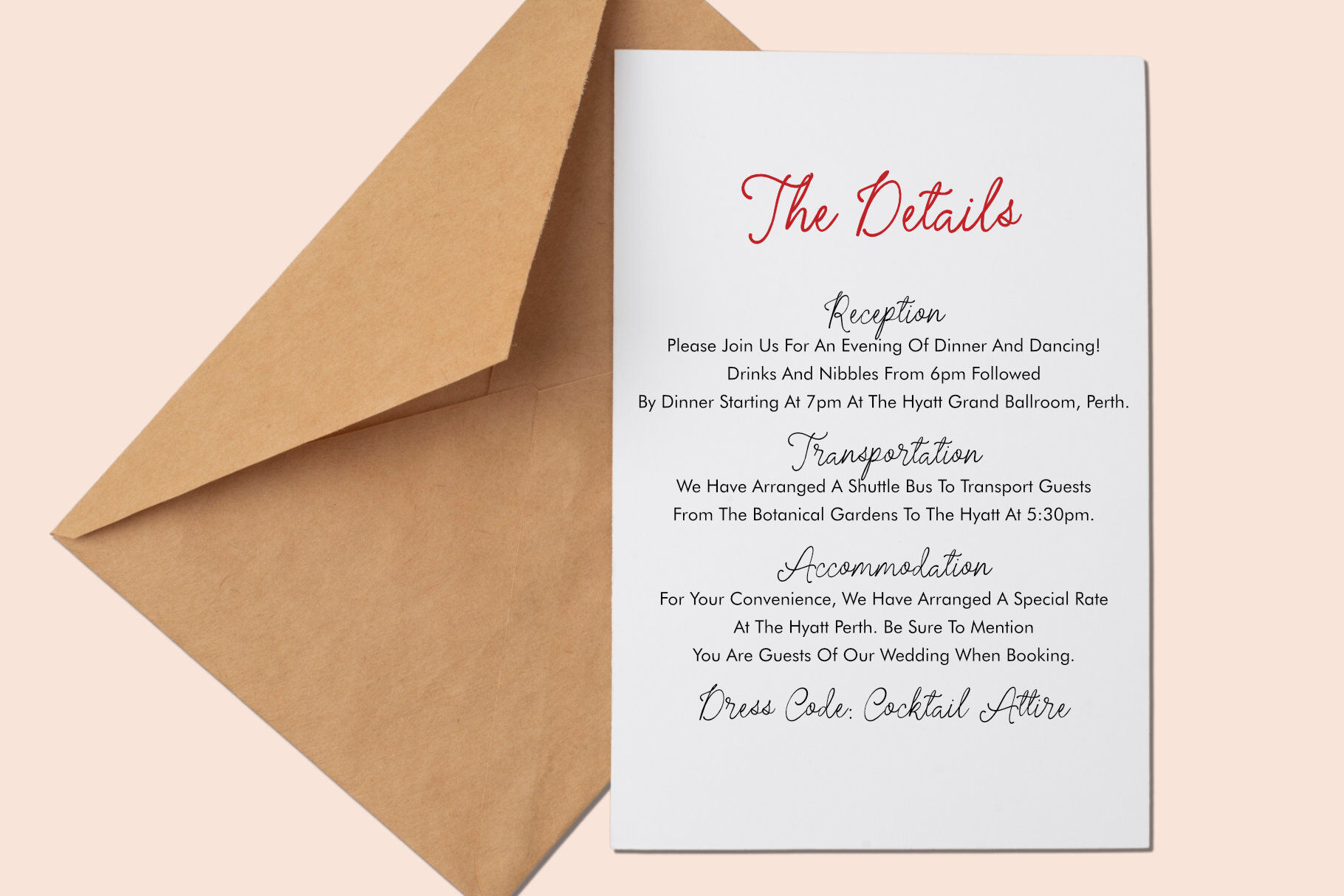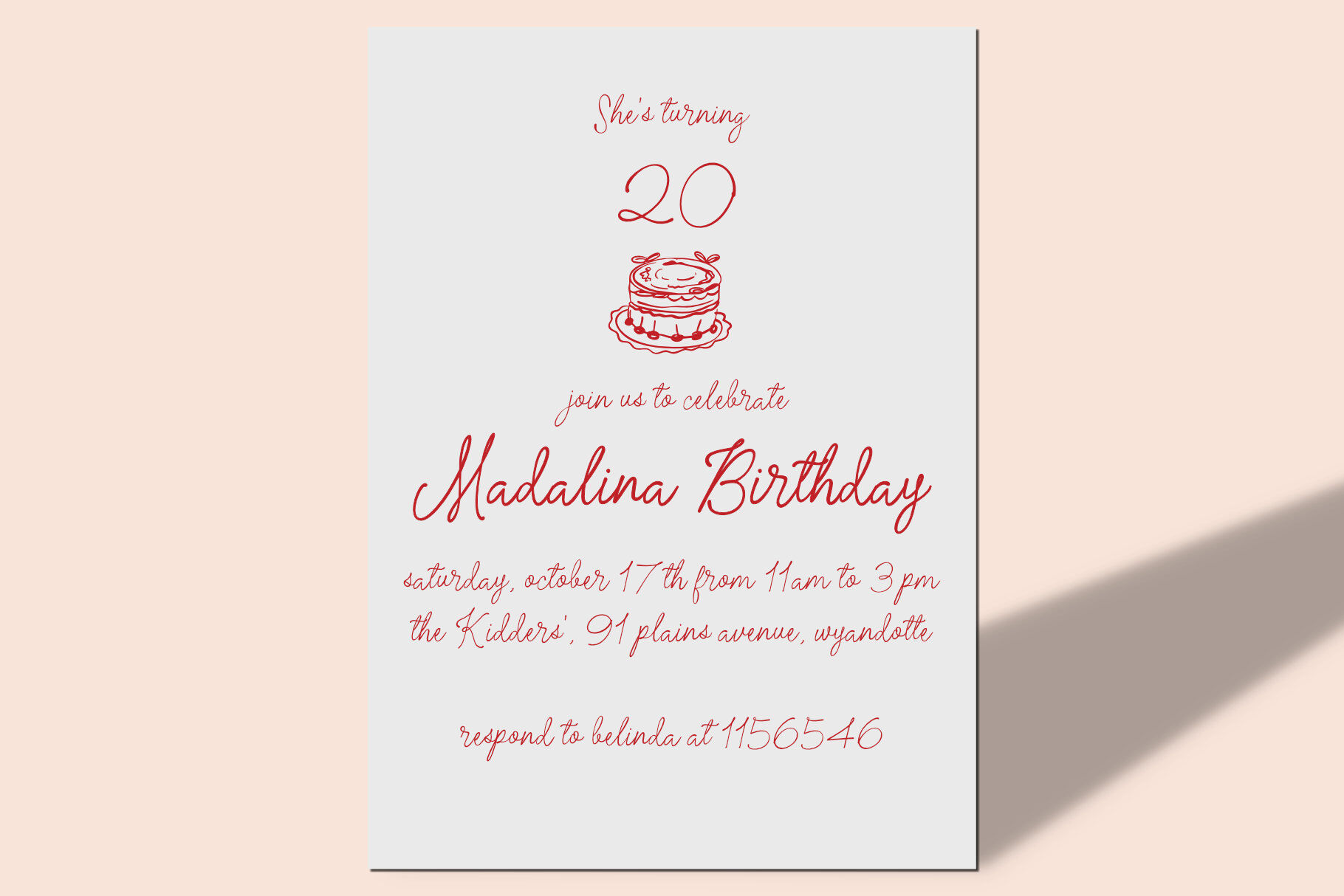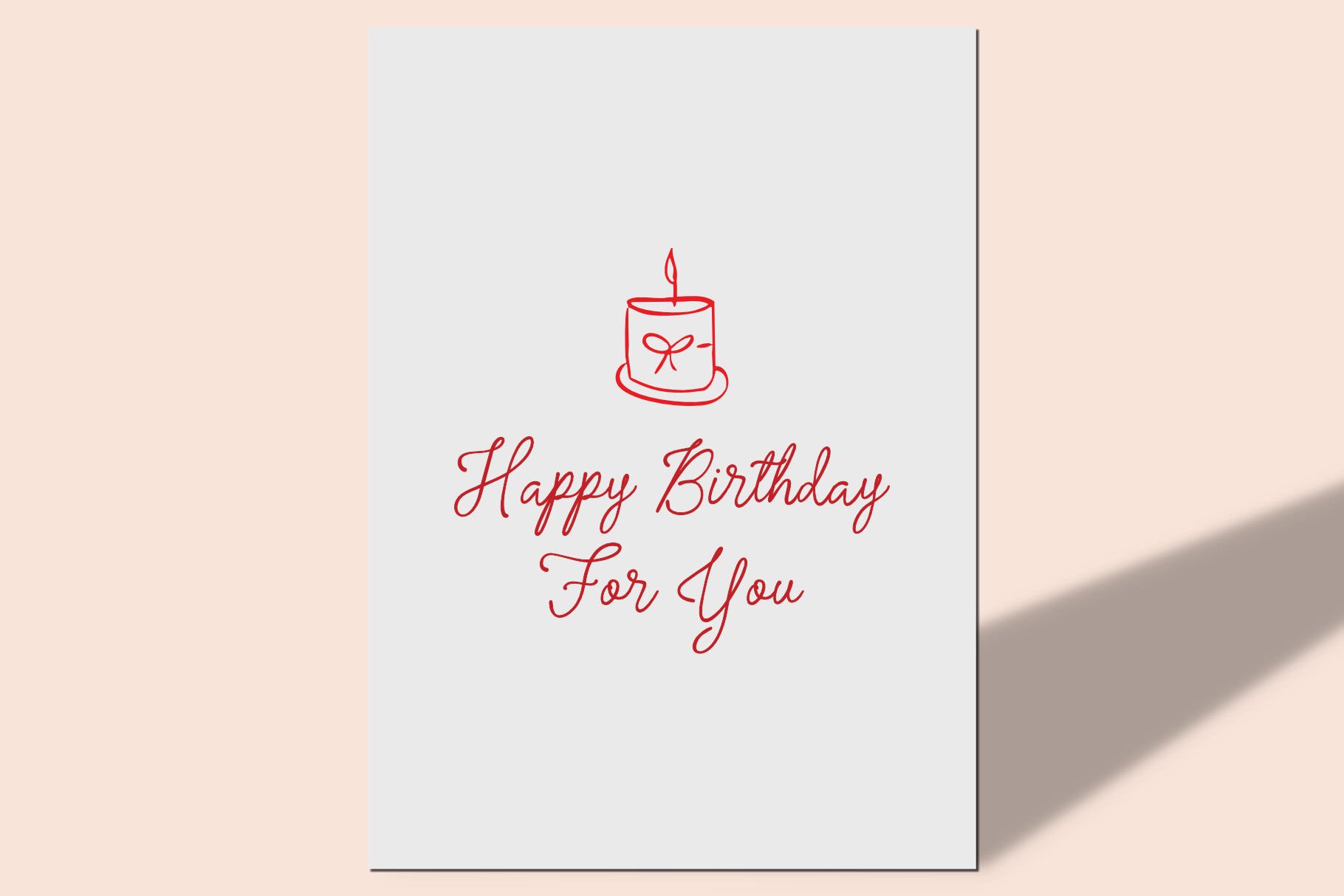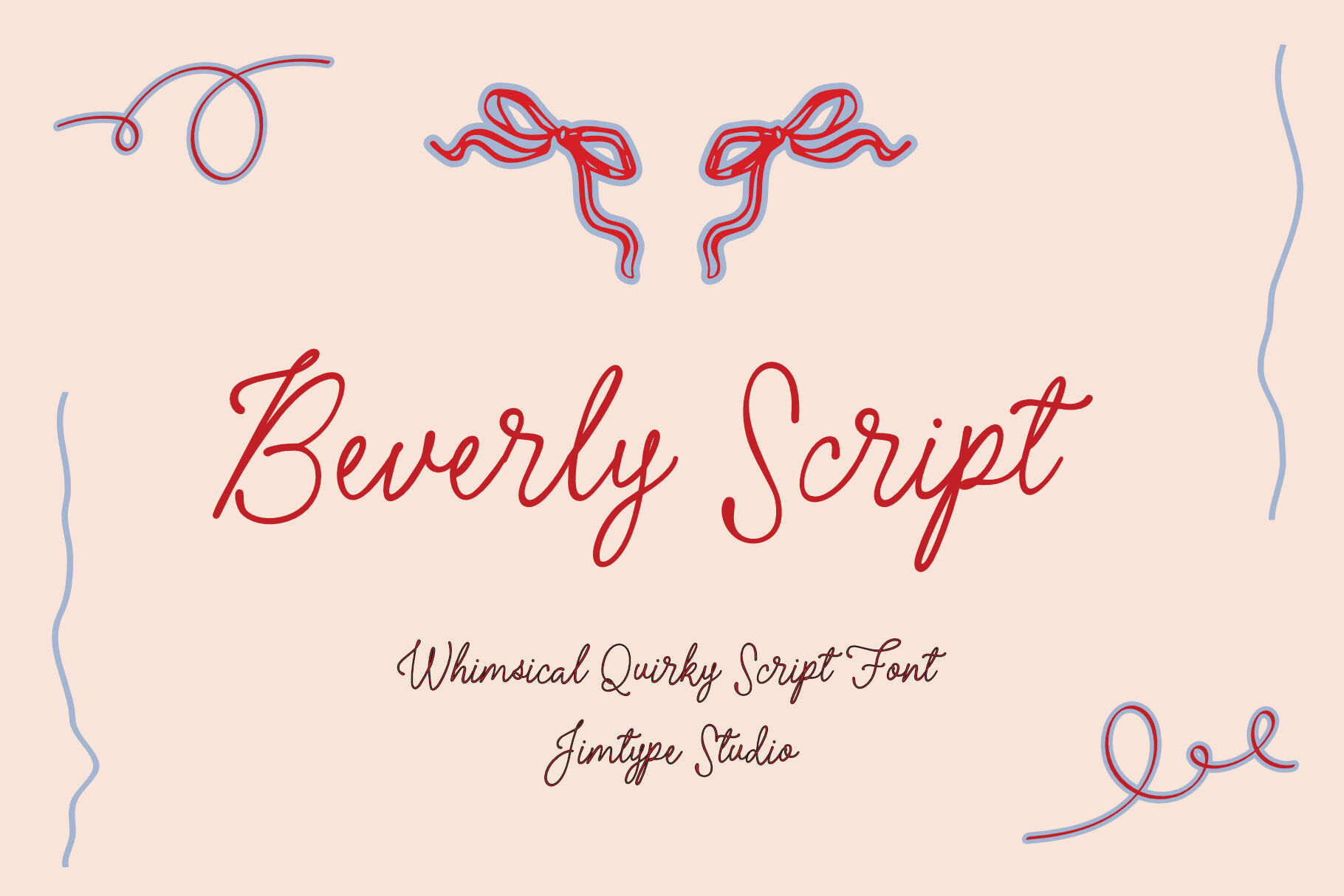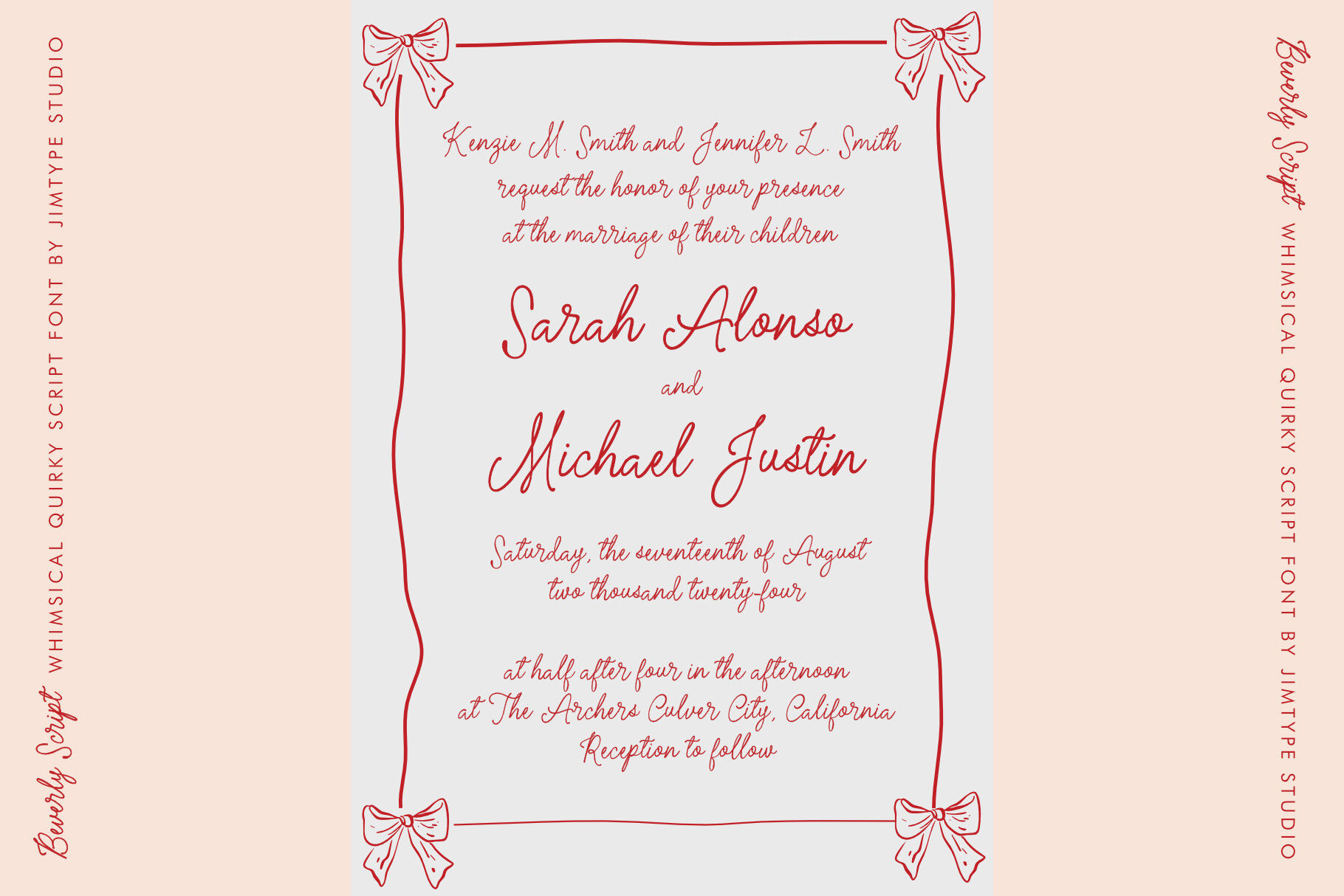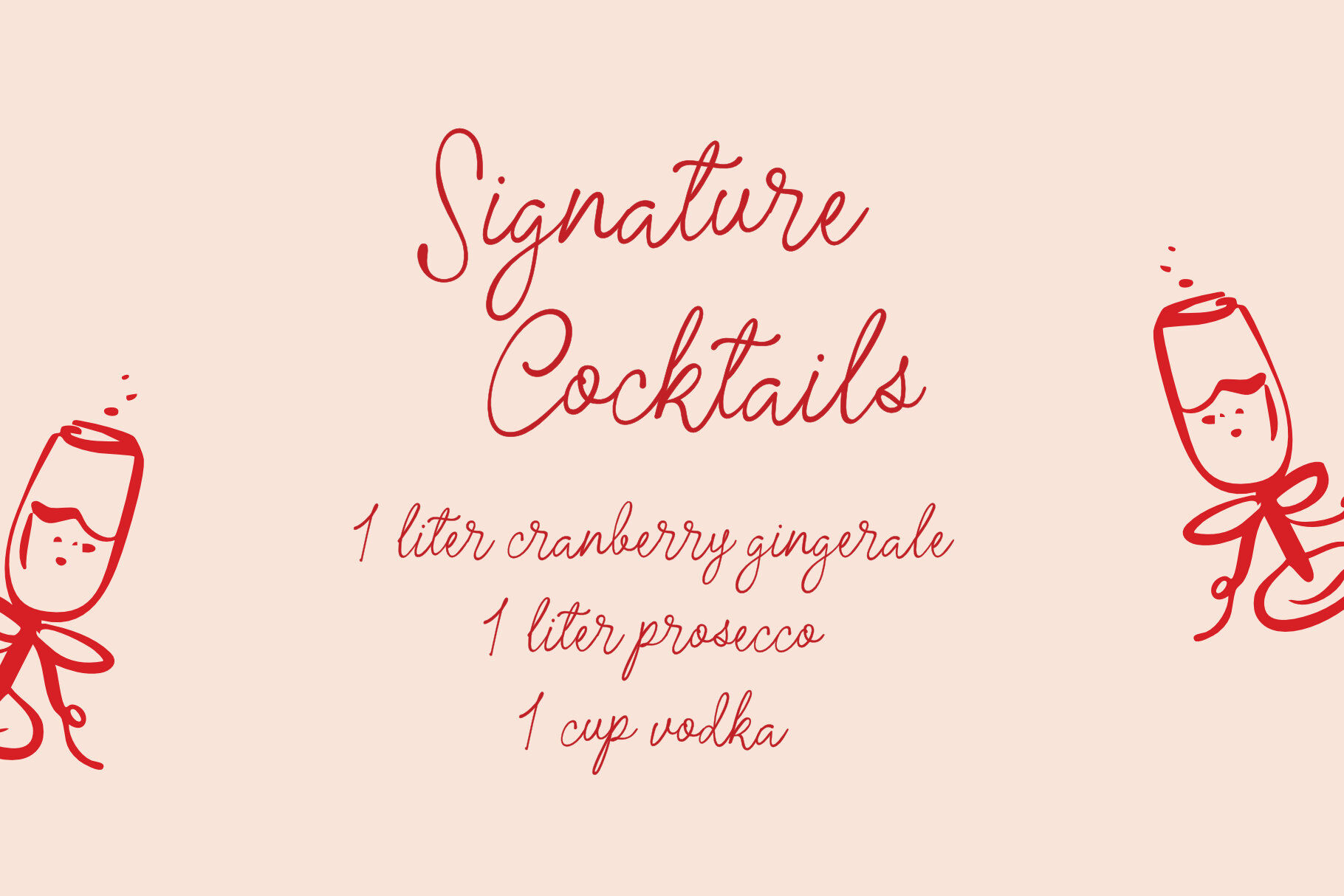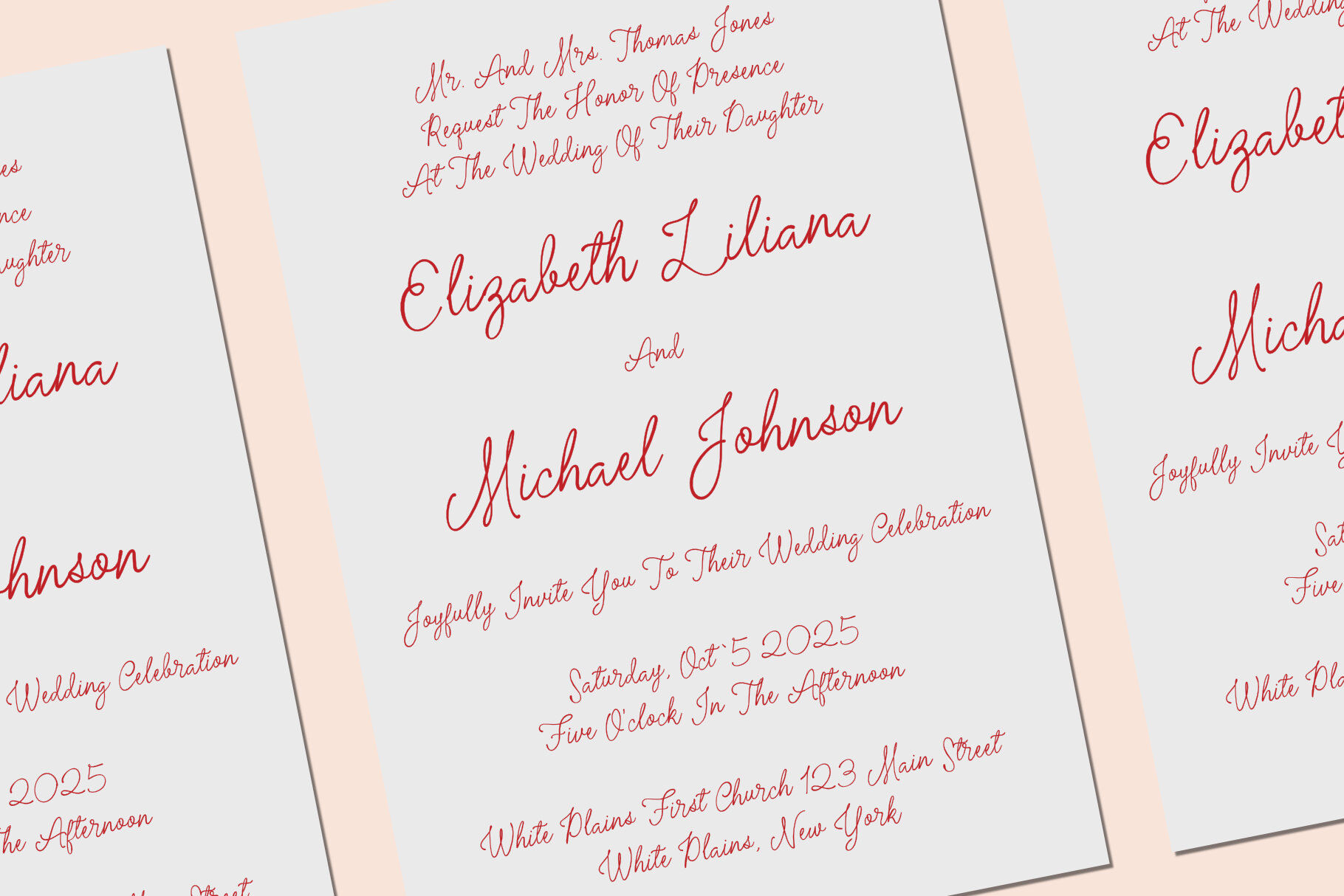
Beverly Script - Whimsical Style Font
Beverly Script, a whimsical handwritten script font designed with a natural flow, is incredibly versatile and can be used for a variety of designs that require a whimsical handwritten touch! Beverly Script is perfect for handmade wedding invitations, playful art prints, greeting cards, unique prints, website themes, branding, logos, and much more. Inside the File: Beverly Script Font (OTF,TTF, WOFF, WOFF2) Thank you so much We hope you enjoy and are happy creating! ~ Jimtype Studio